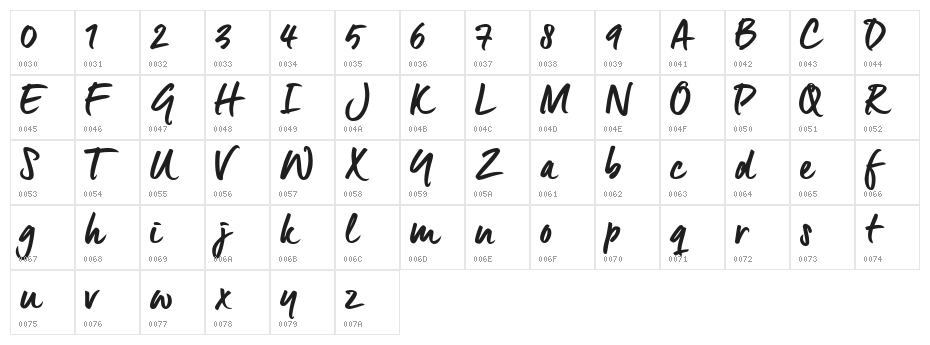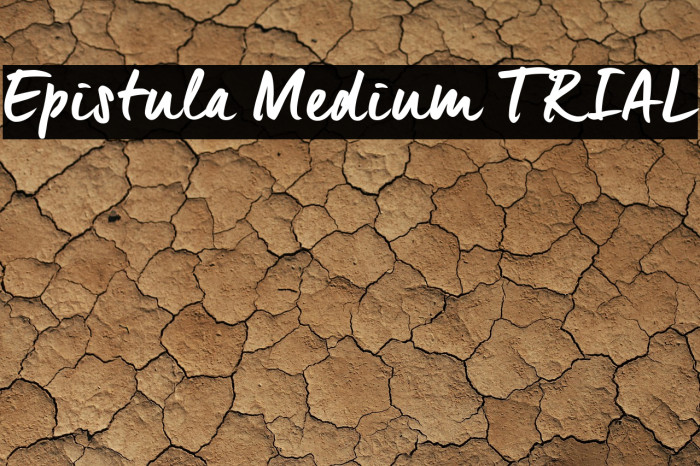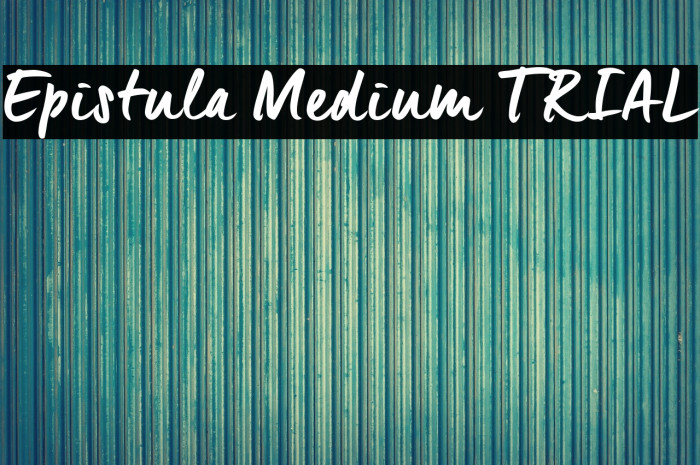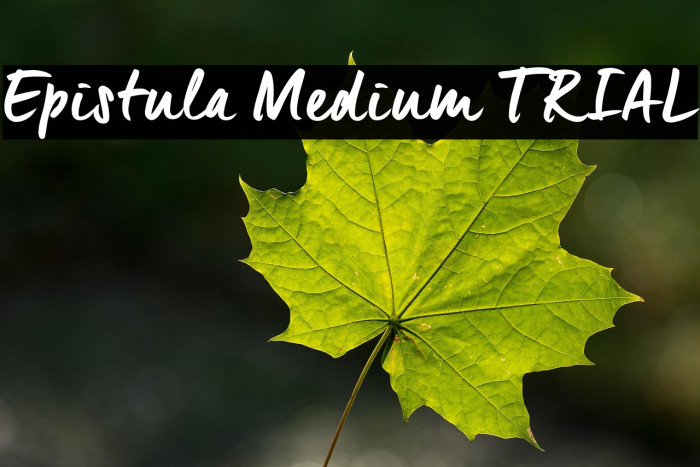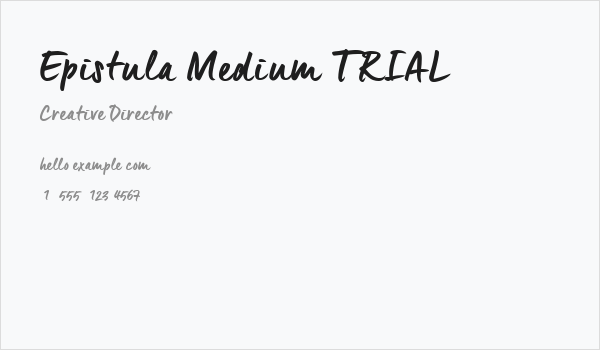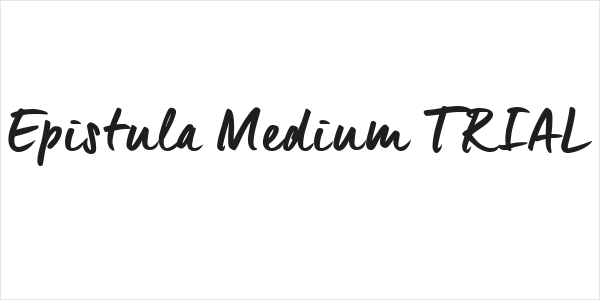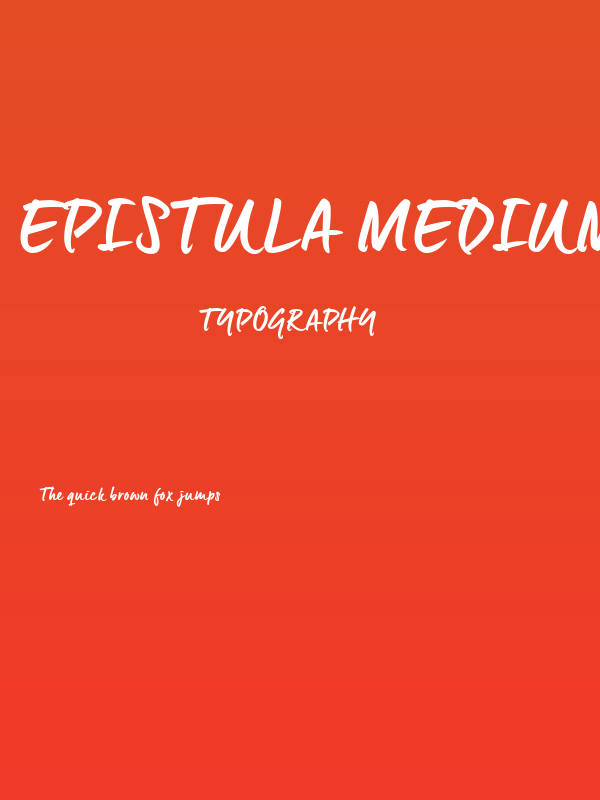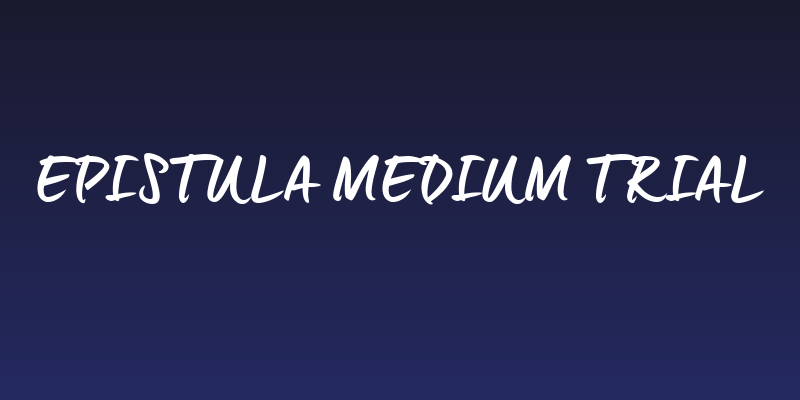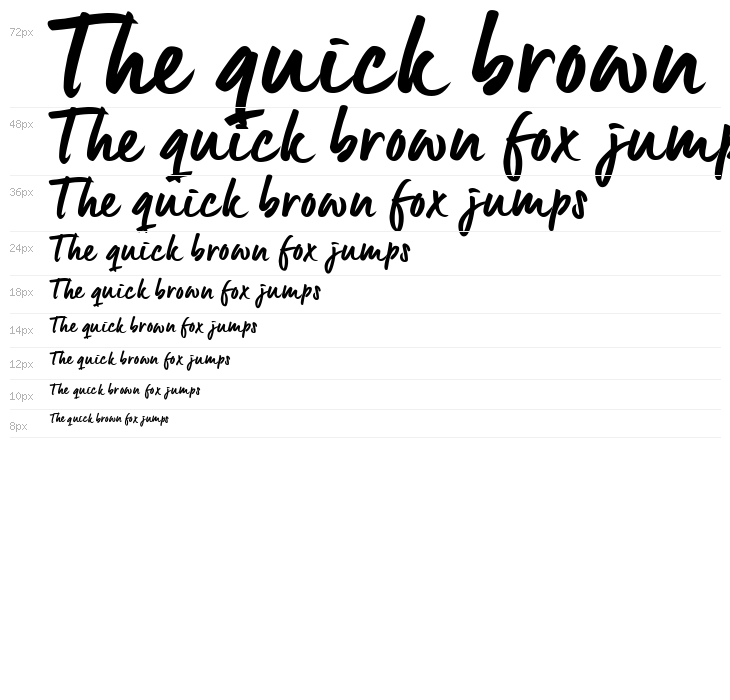
Epistula Medium TRIAL Font
Epistula Medium TRIAL Description
This font features a dynamic and expressive handwritten style, characterized by its fluid and connected strokes. The letters exhibit a natural flow, reminiscent of casual script writing, with a slight slant that adds to its informal charm. The bold weight of the strokes provides a strong visual presence, making it suitable for attention-grabbing designs. The uppercase and lowercase letters maintain a consistent style, with rounded edges and smooth curves that enhance readability. The numerals and special characters are crafted with the same attention to detail, ensuring a cohesive look across all elements. This font's energetic and lively appearance makes it ideal for creative and playful projects.
| Proposed Projects | Ideal for greeting cards, invitations, branding, and social media graphics. |